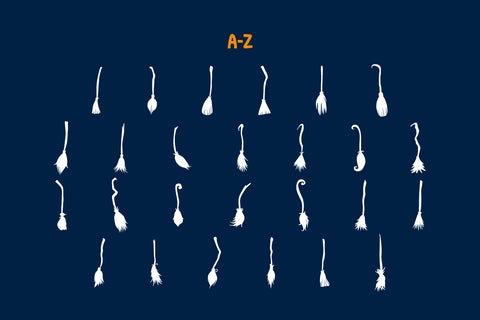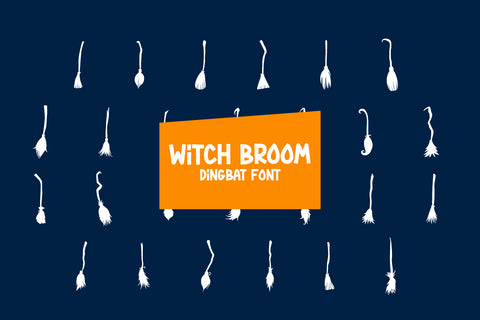
Witch Broom - Dingbat Font
Witch Broom is a unique and creative dingbat font. This font is inspired from the Halloween theme. This font contains glyphs of various witch broom shapes